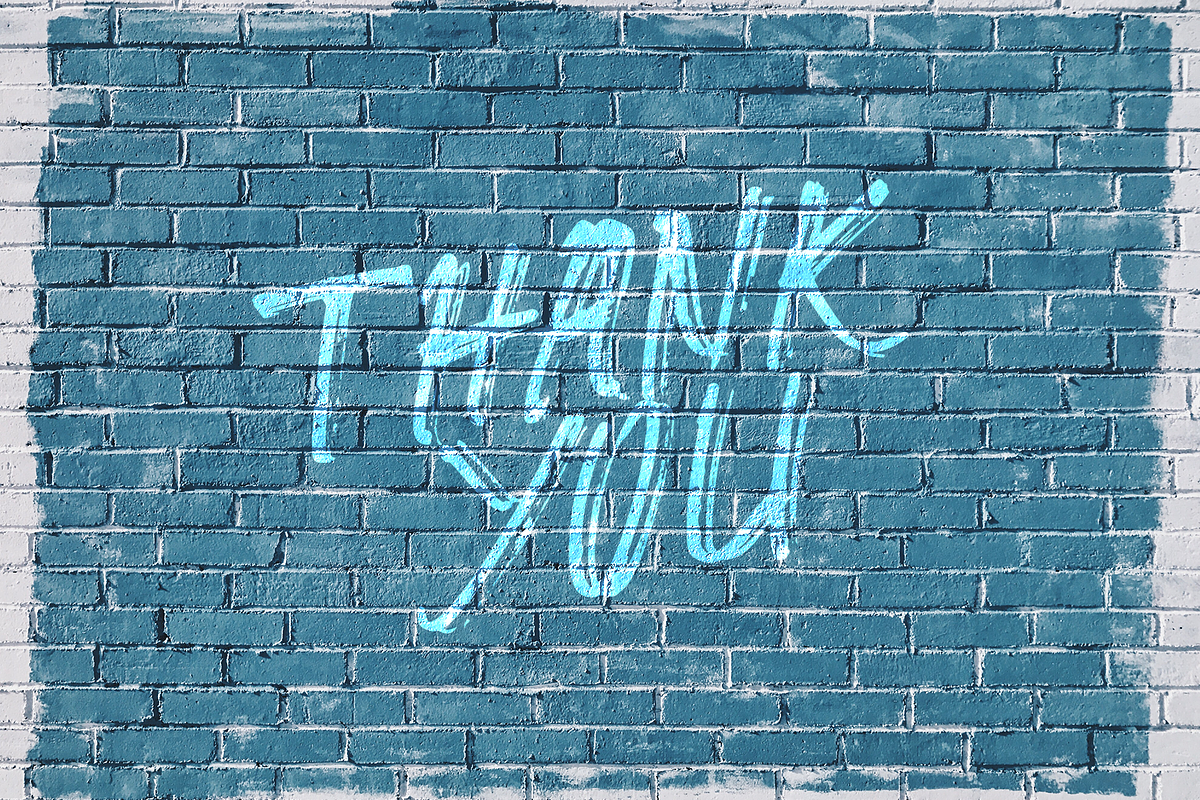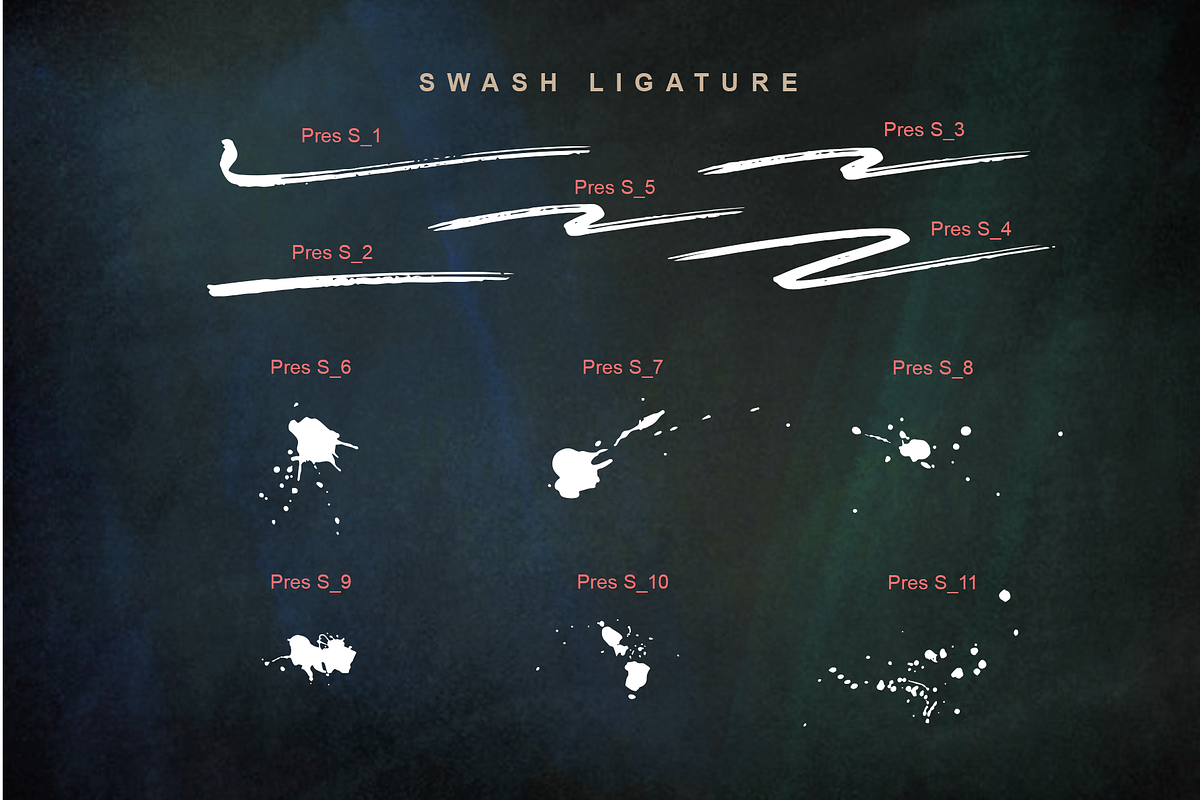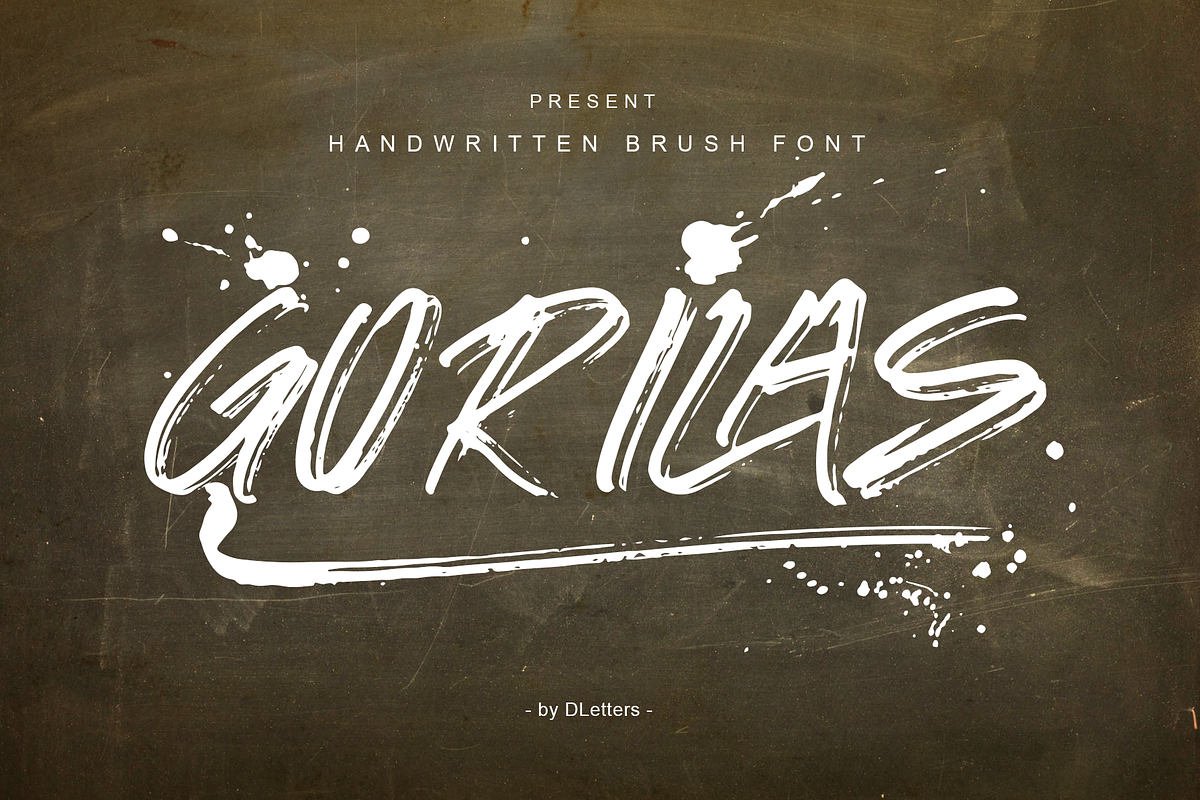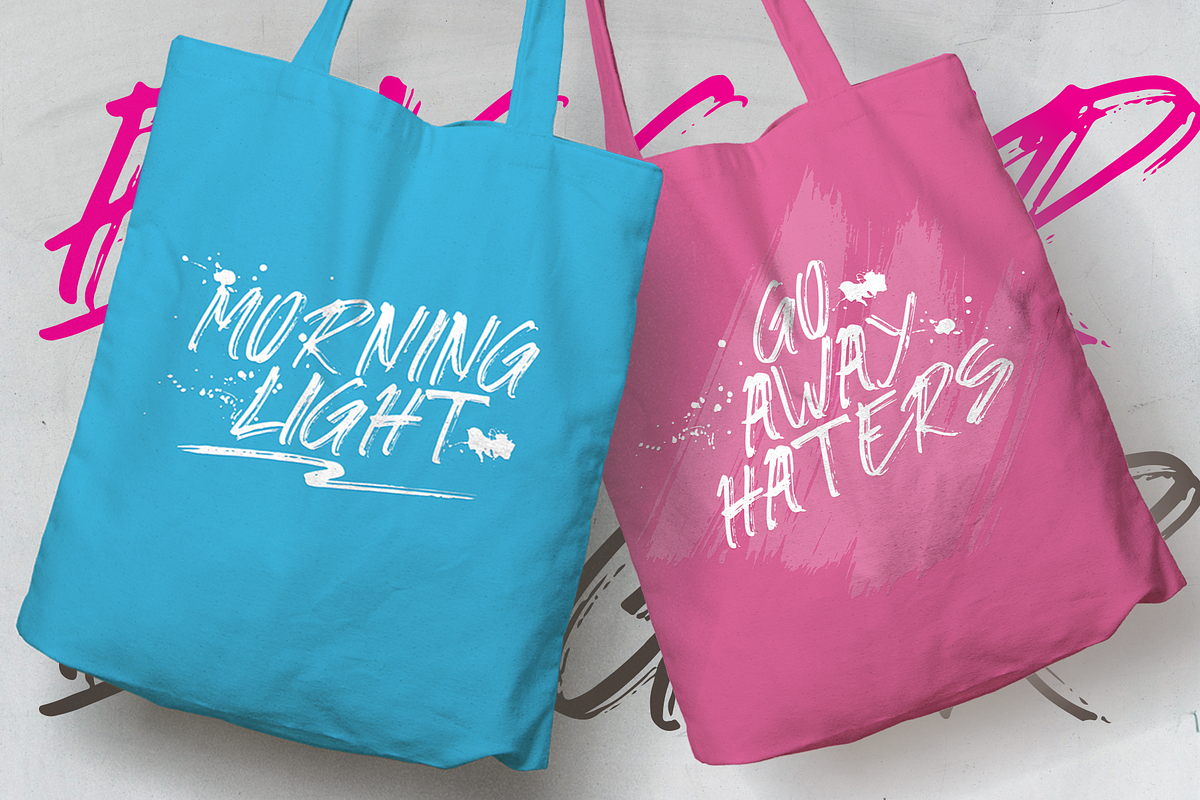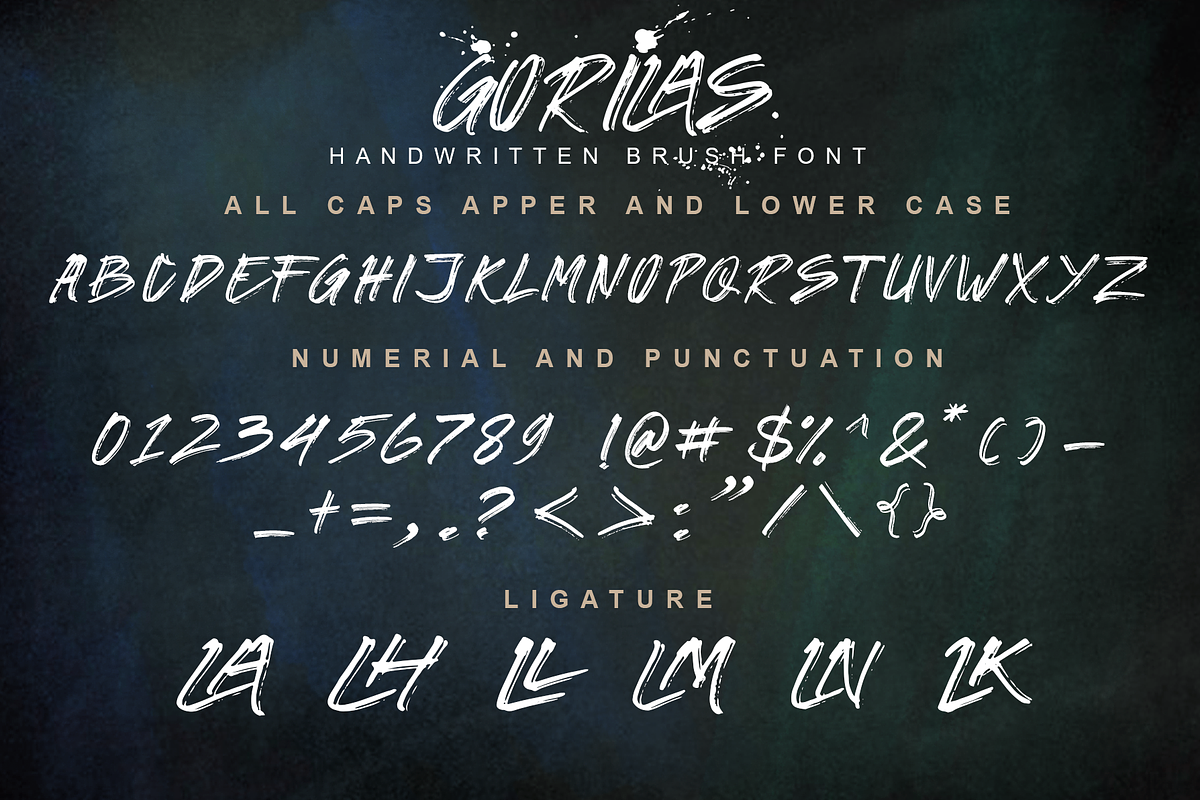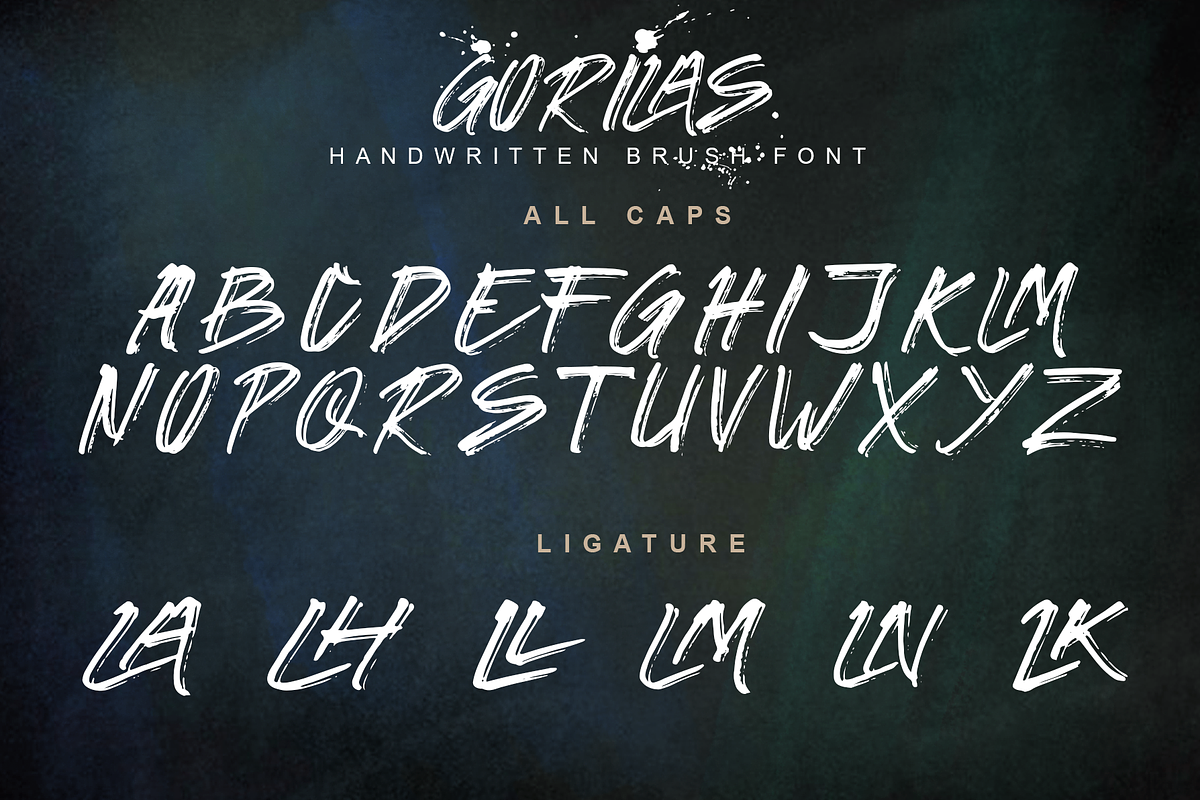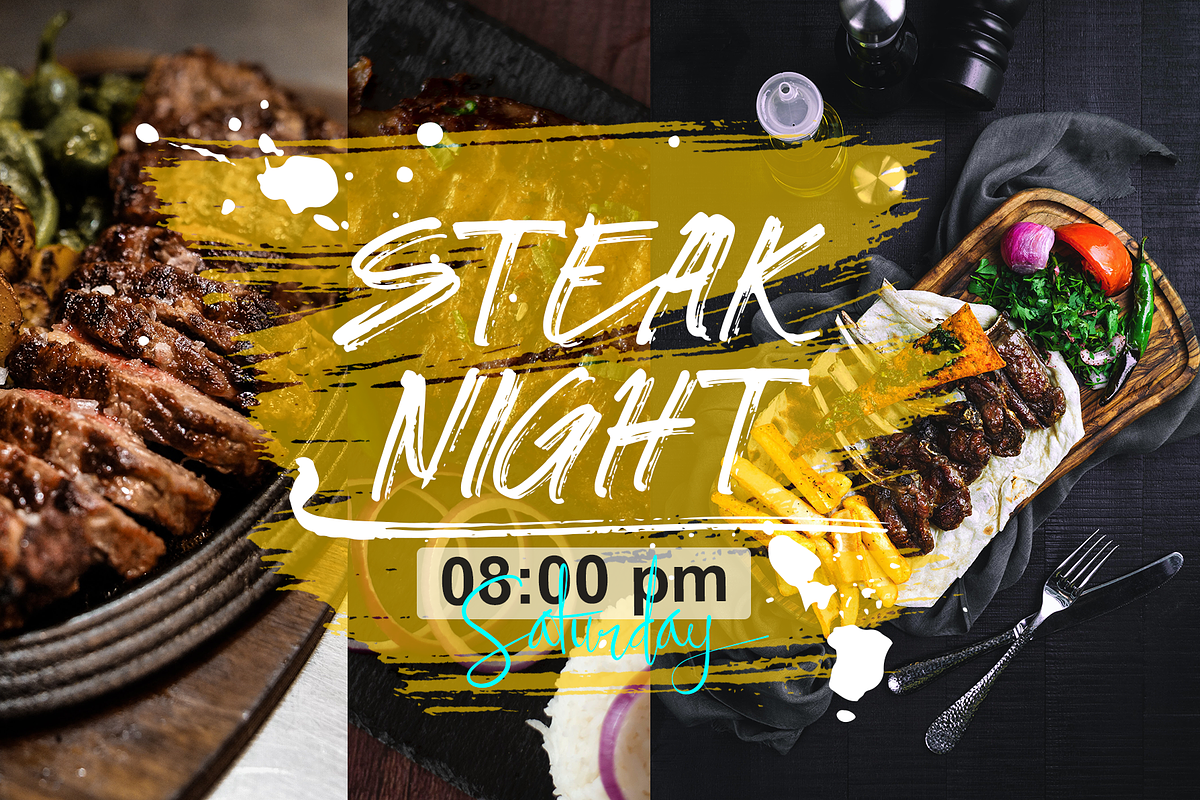
GORILAS Hand Brush
GORILAS Handbrush Font, is a font with an available brushstroke style with a set of uppercase all with number and punctuation support, and Ligatures making this font perfect for your awesome project.